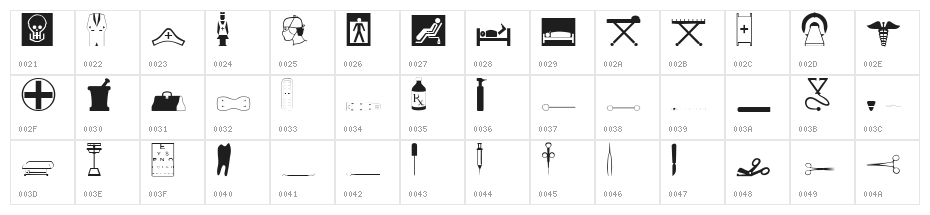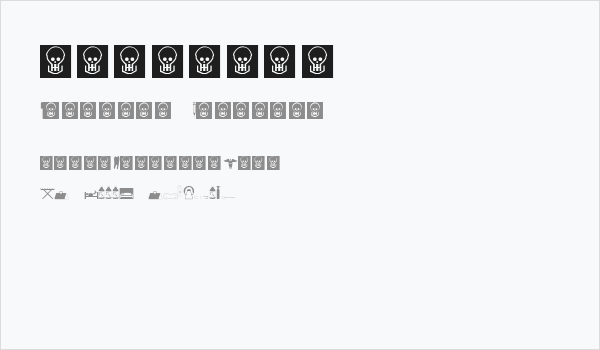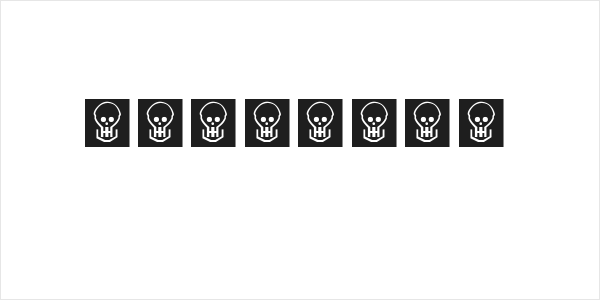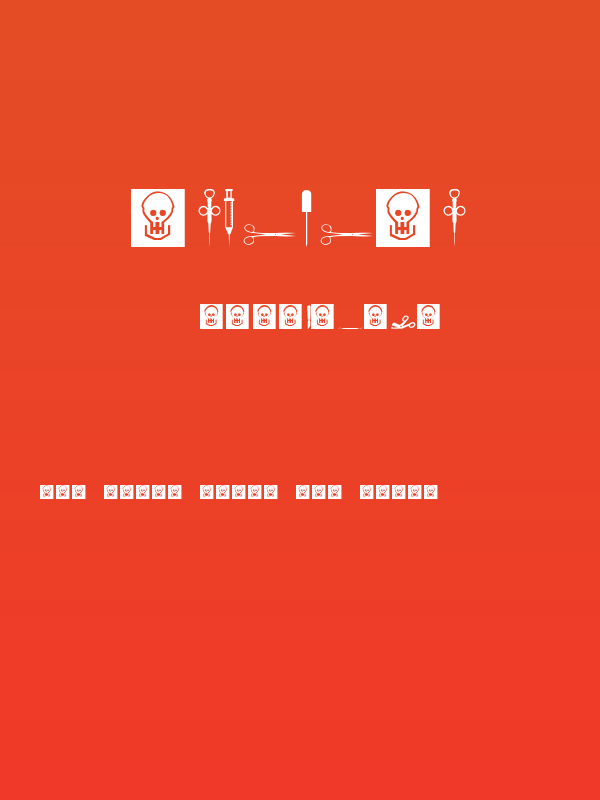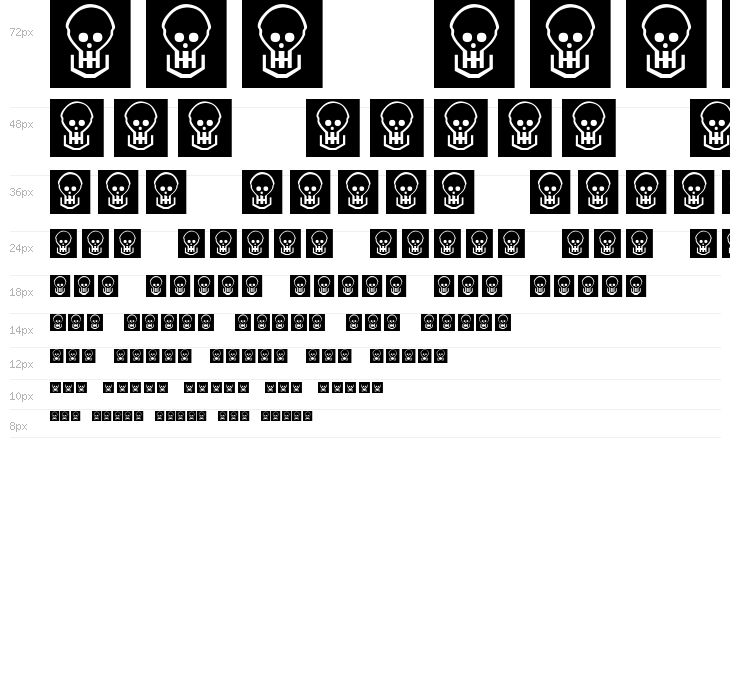
Medicine Font
Medicine Description
This set of icons is themed around medical and healthcare elements, featuring a variety of symbols such as surgical tools, medicine bottles, bandages, and medical personnel. The icons are designed in a bold, monochromatic style, with a focus on clarity and simplicity. Each icon is distinct, making them easily recognizable and suitable for use in healthcare-related projects. The consistent use of black and white enhances the professional and serious tone appropriate for medical contexts.
| Use Case | Icons for medical apps, websites, and educational materials. |
| Proposed Projects | Ideal for use in healthcare applications, medical websites, educational materials, and hospital signage. |